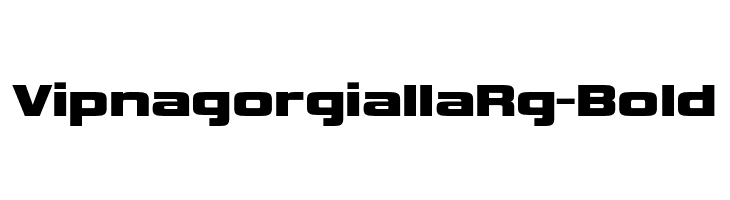
A bold, modern font with a geometric and futuristic design.
A modern, geometric font with clean lines and a technical appearance.
A bold, modern font with strong geometric shapes and a consistent weight.